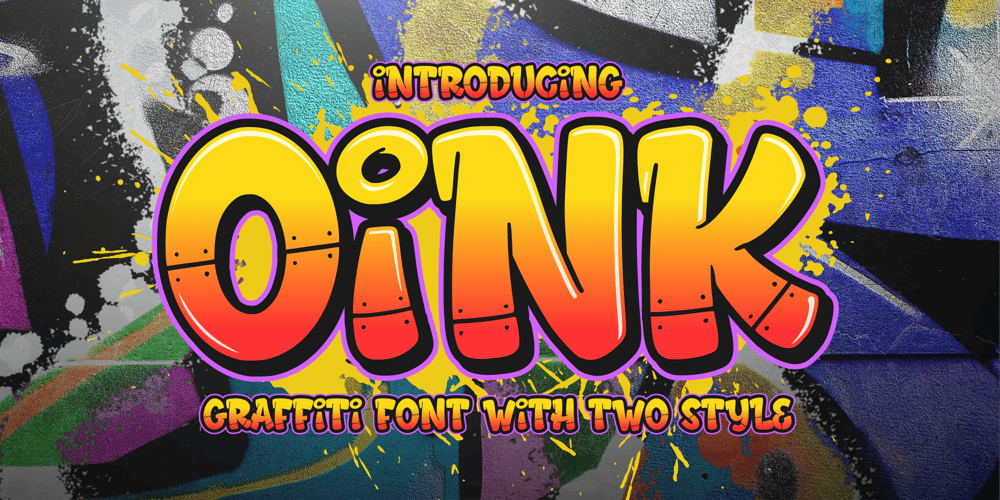
Oink
Oink font
Oink Font Family was designed by Fachrizal Yusuf and published by Allouse Studio. Oink contains 2 styles and family package options. Proudly Presenting, Oink A Graffiti Font With Two Styles.Oink is perfect for any titles, logo, product packaging, branding project, megazine, social media, wedding, or just used to express words above the background.Oink also come with Multi-Lingual Support.Enjoy the font, feel free to comment or feedback, send me PM or email. Thank You!